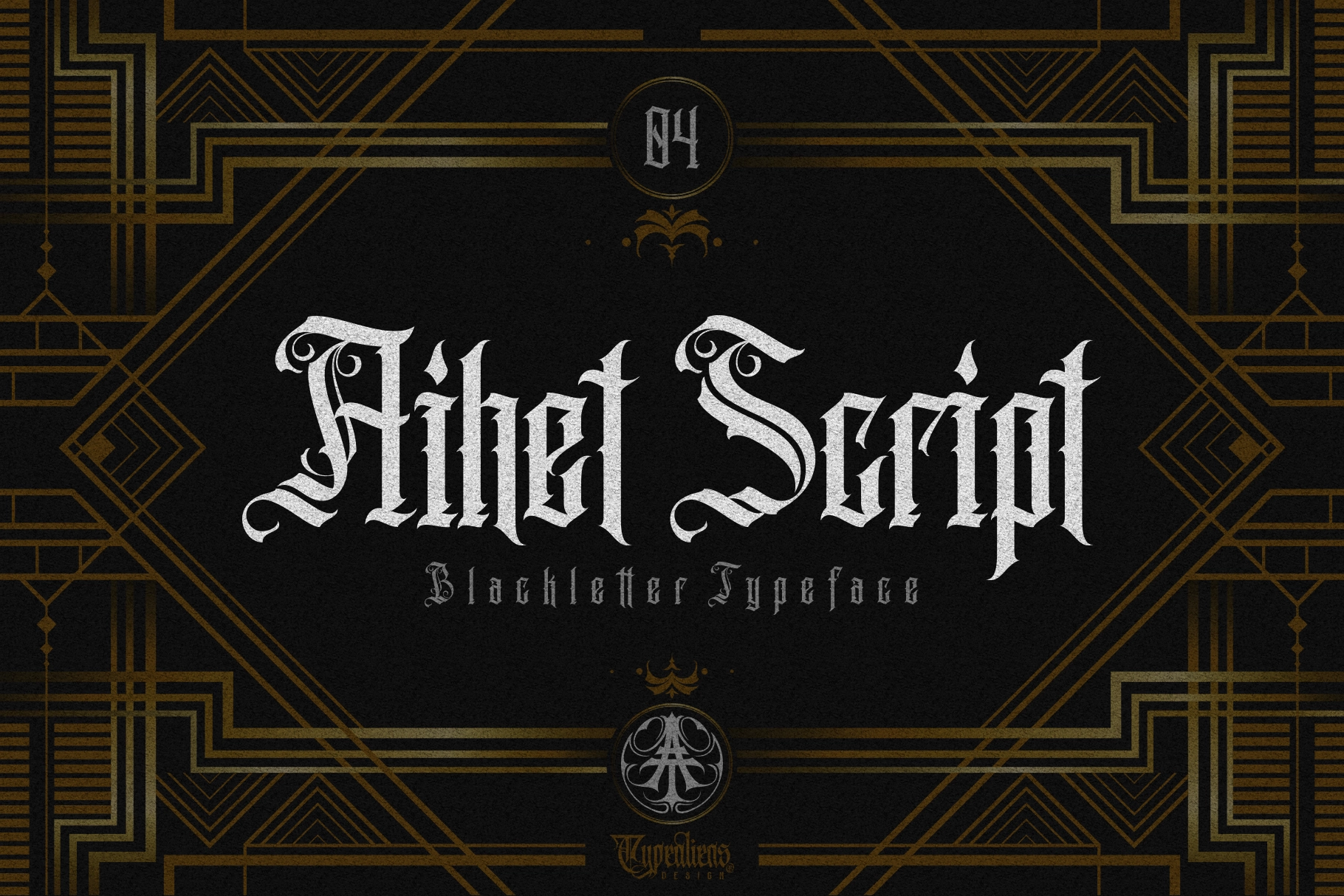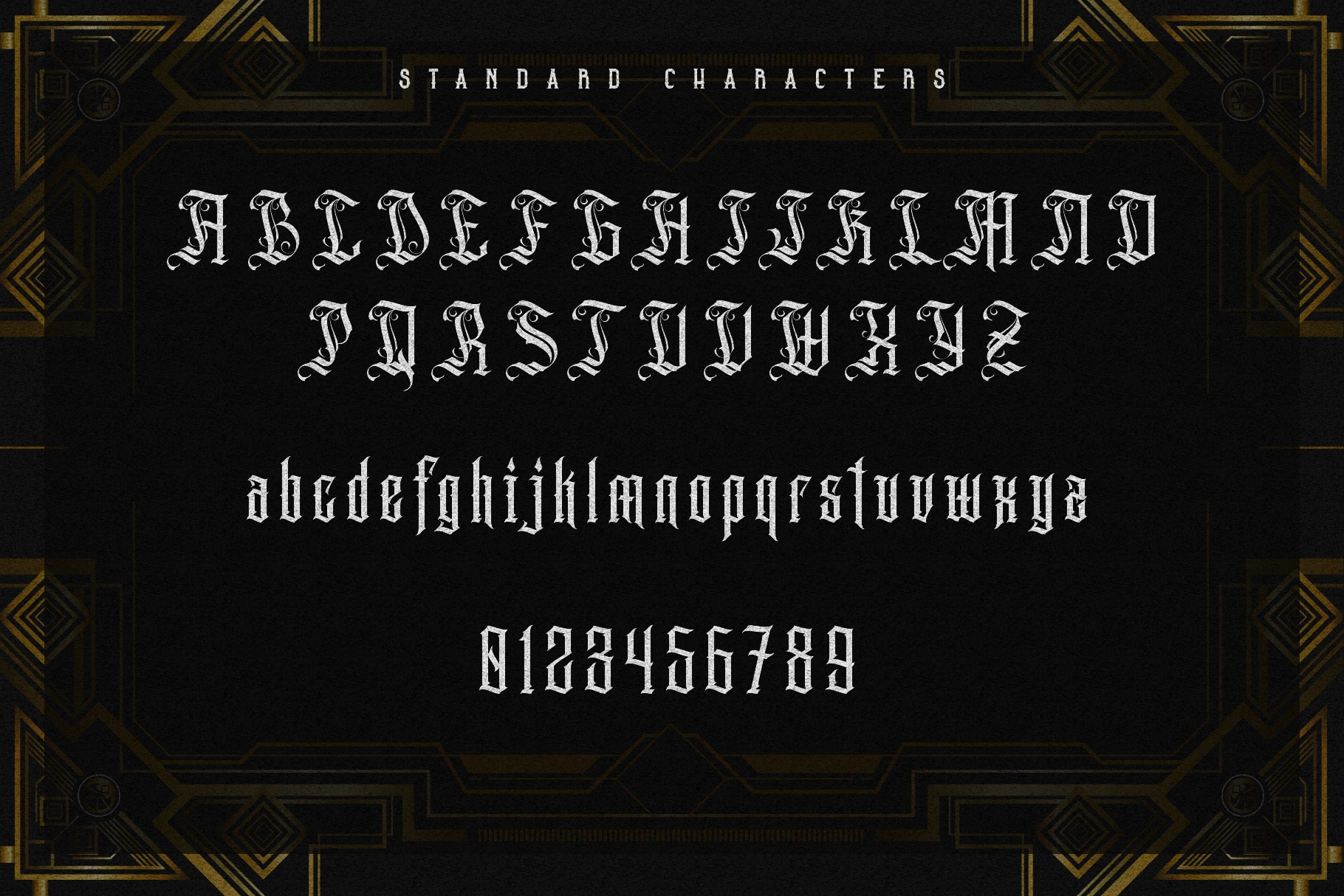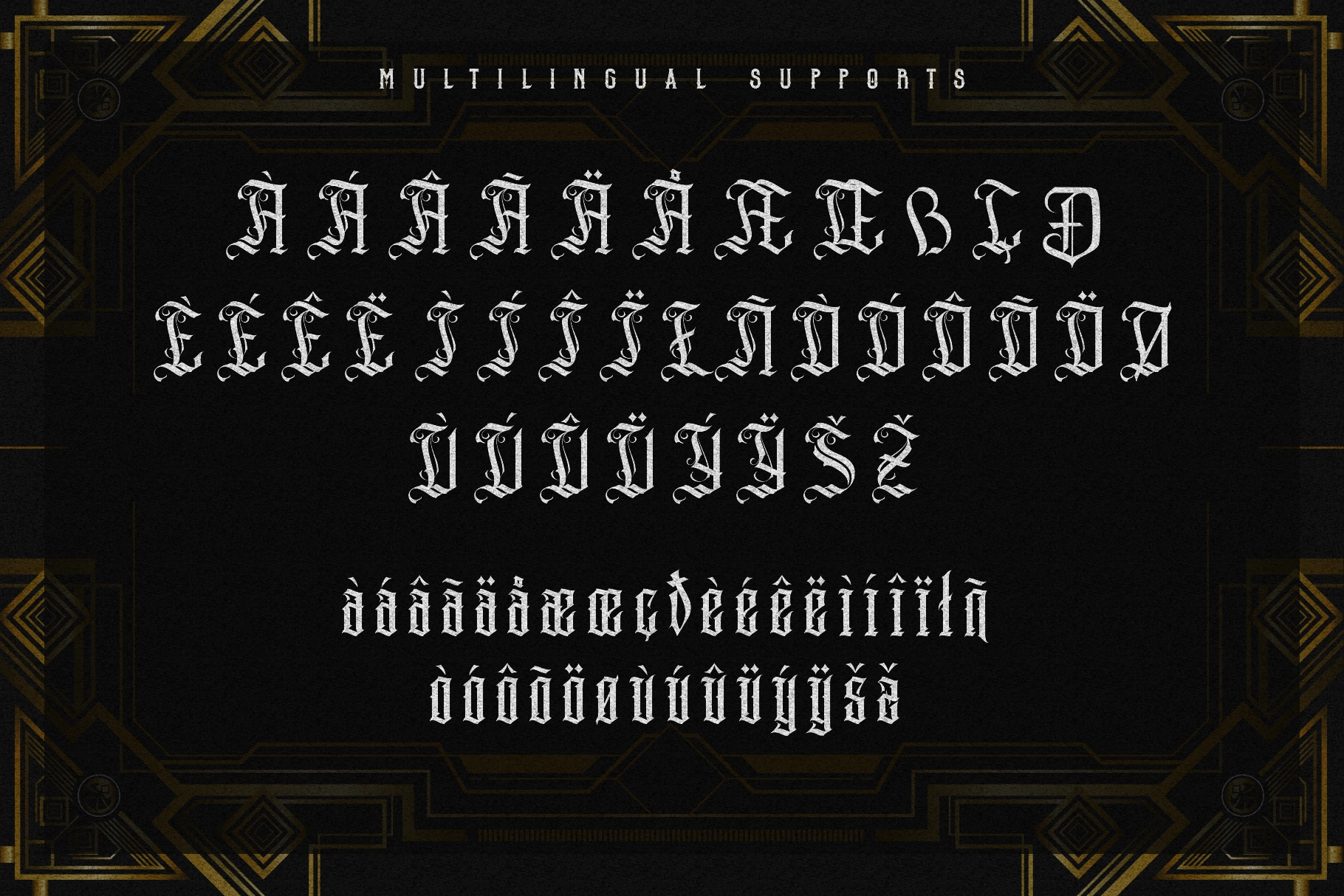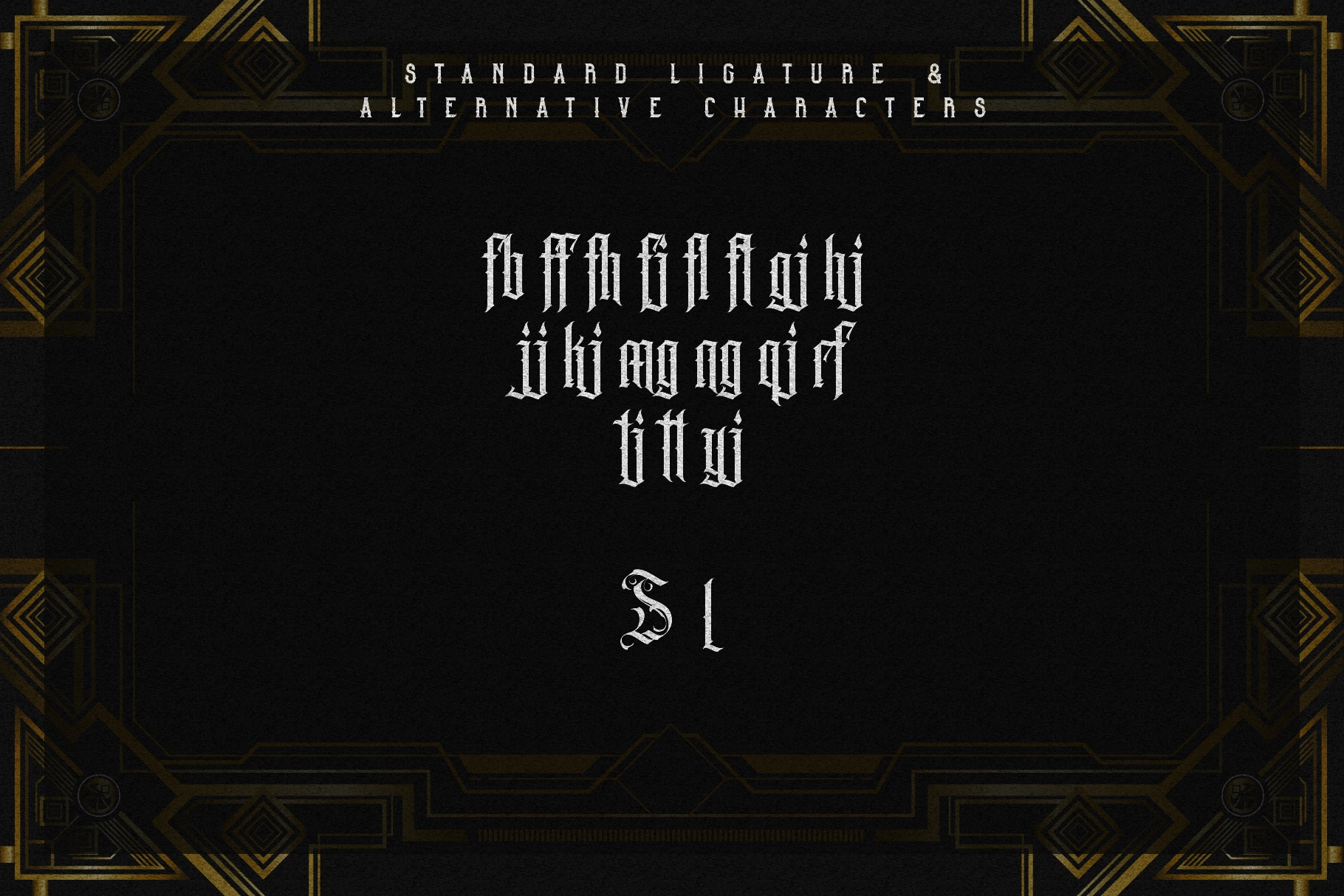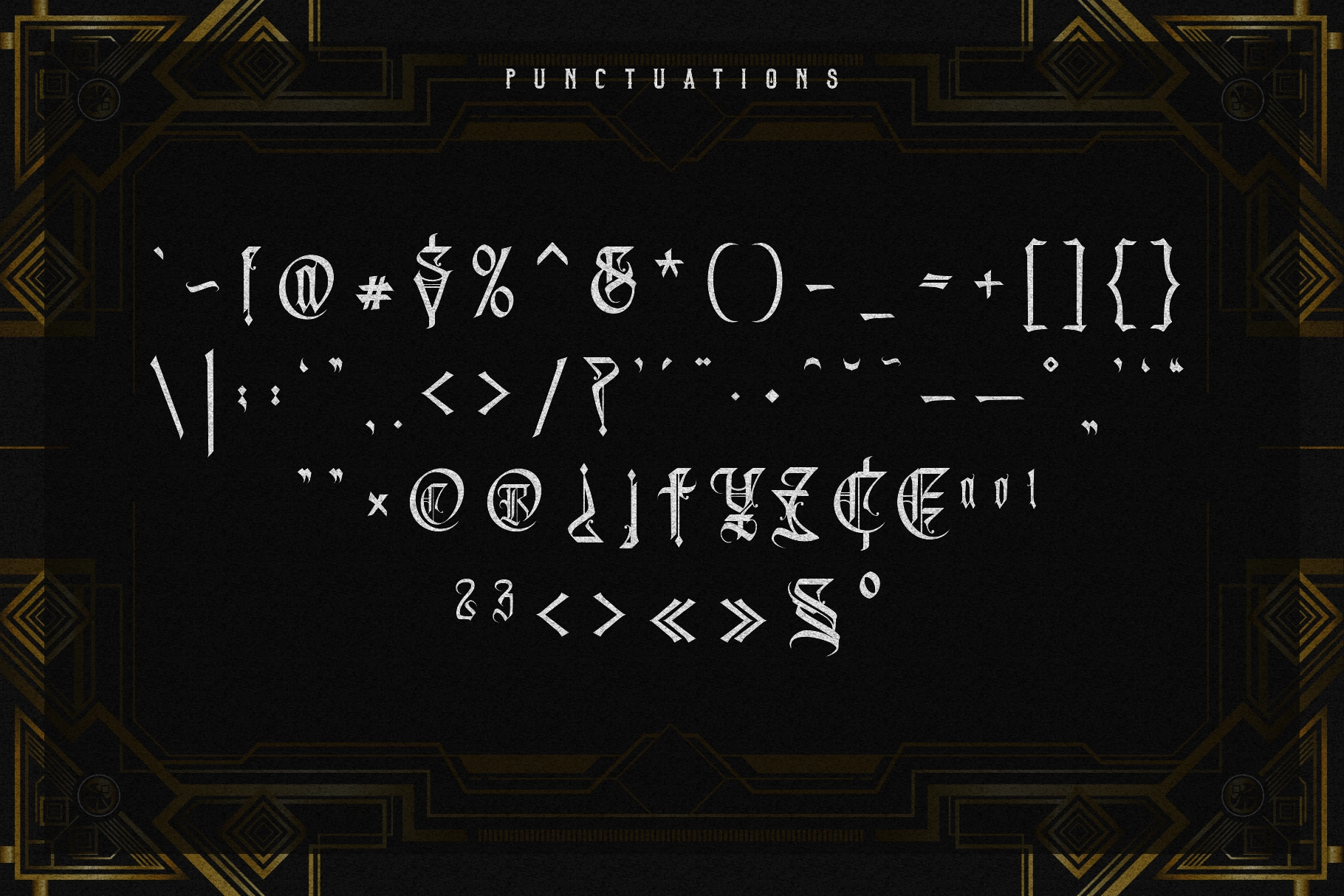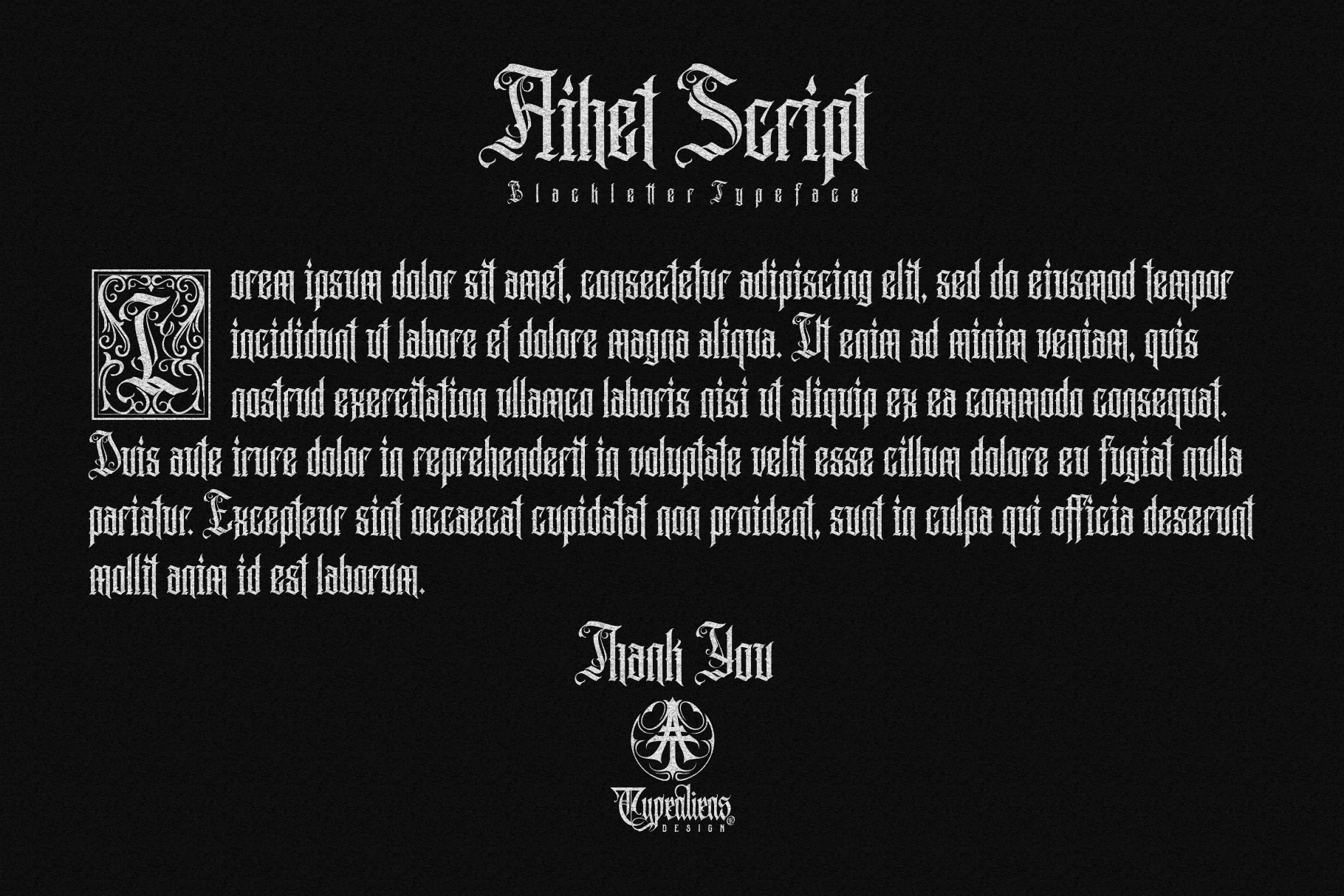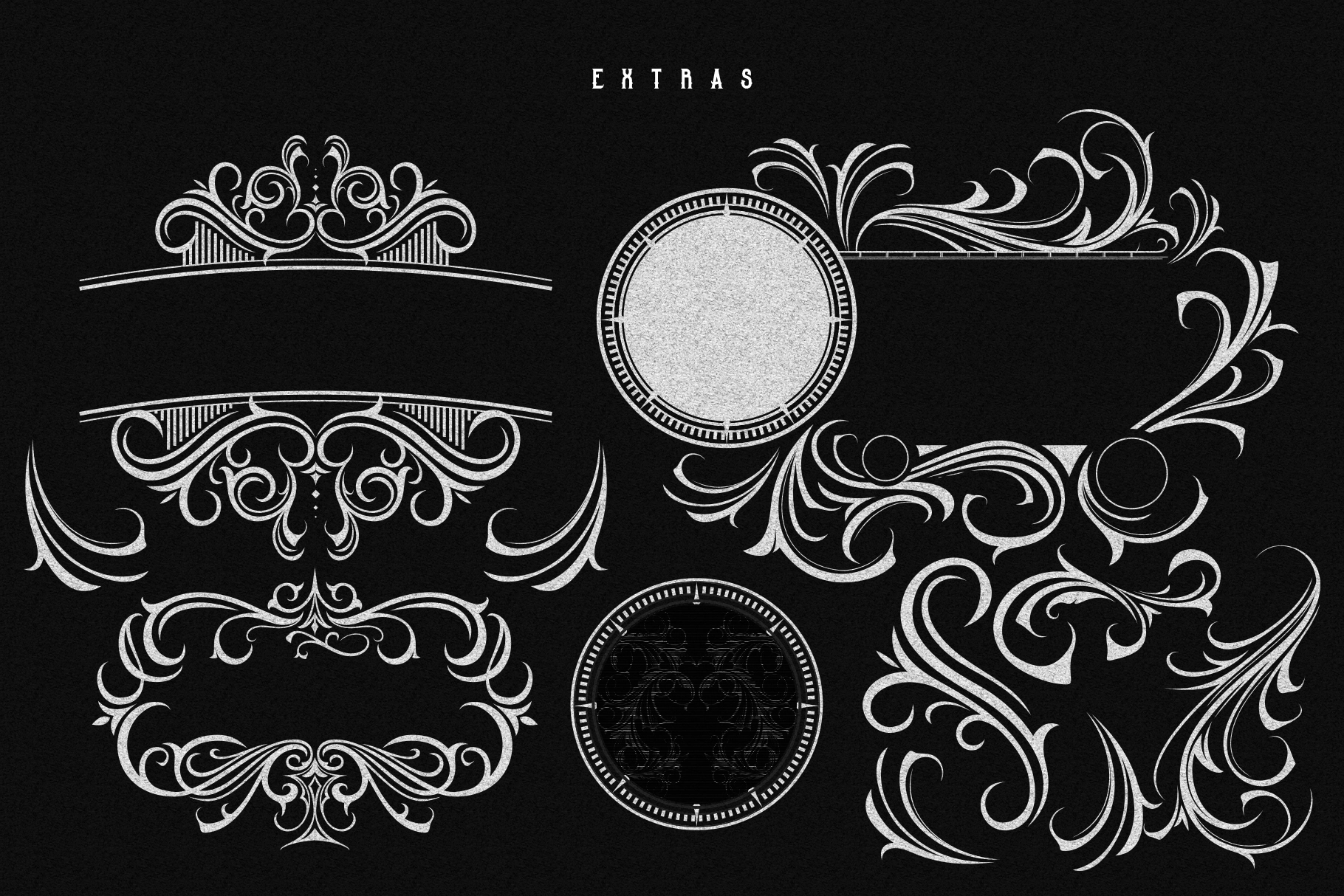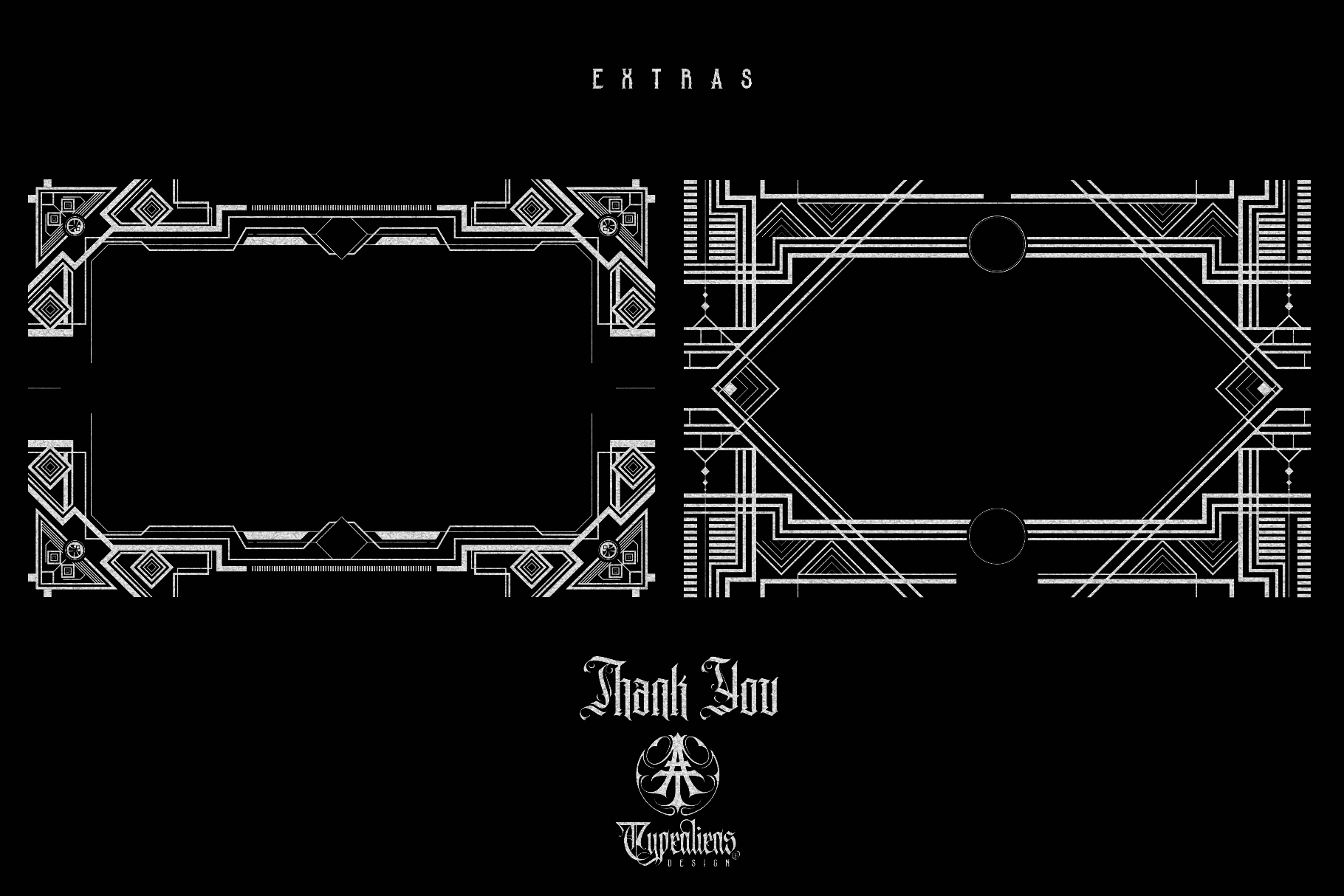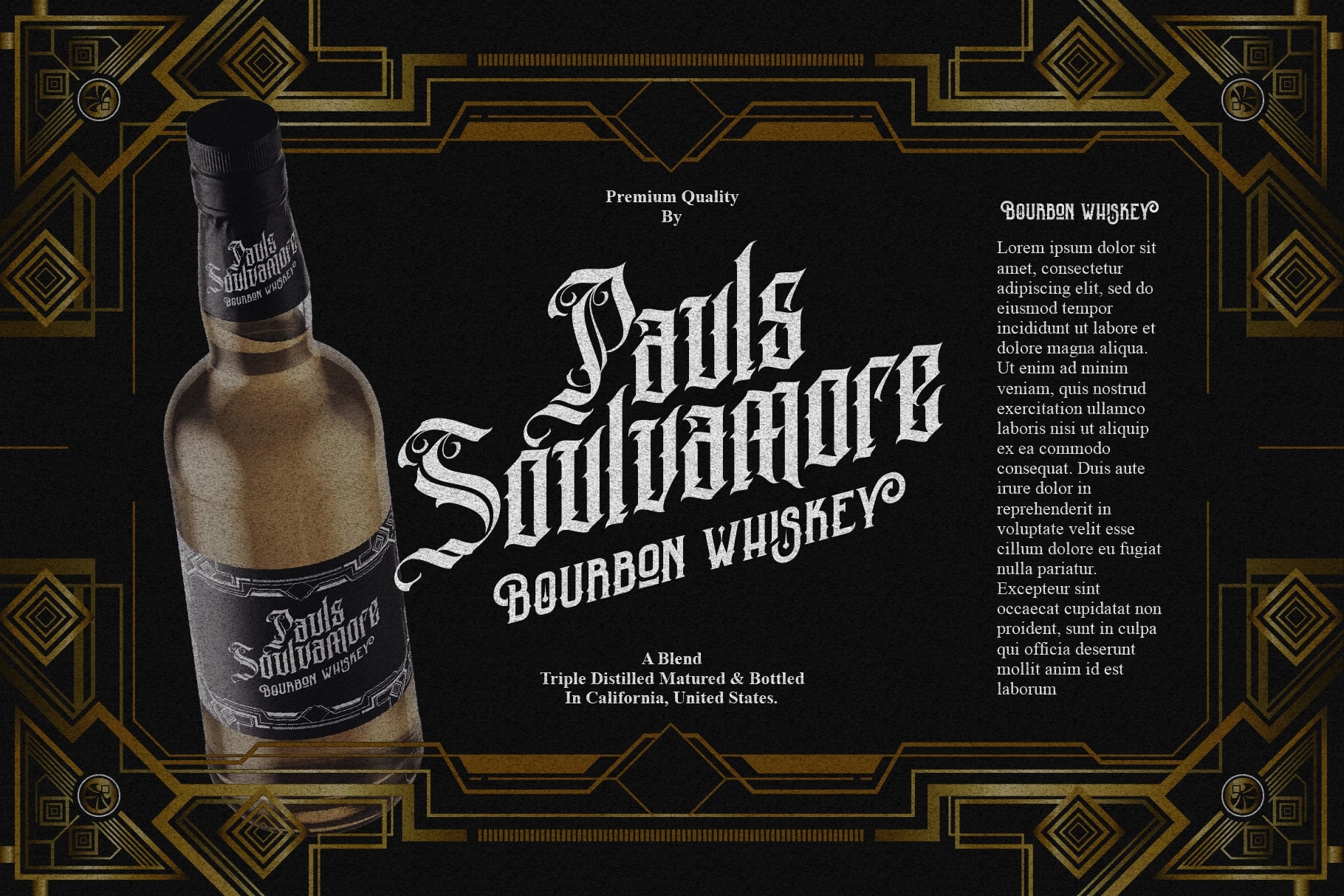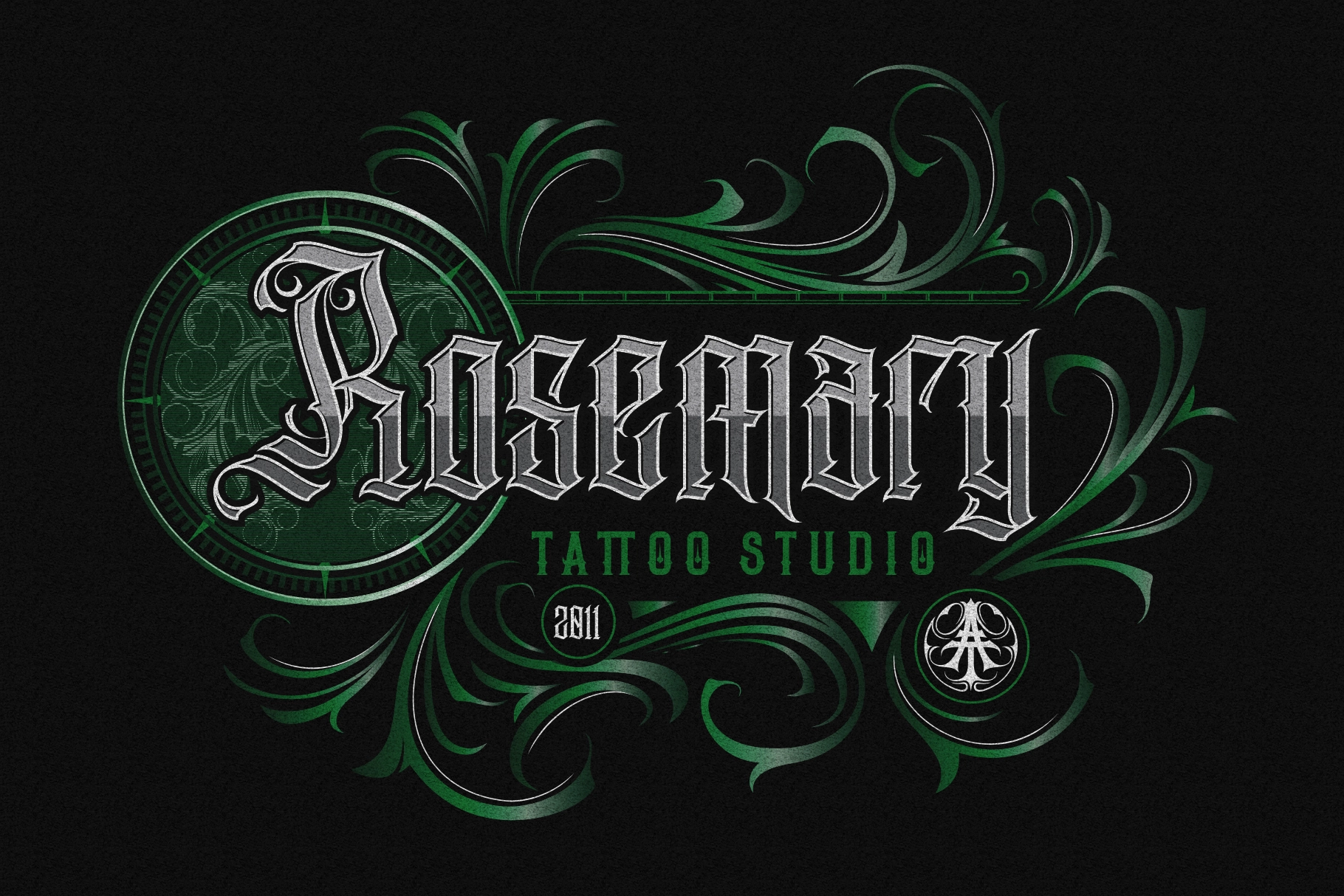
Aihet Script - Vintage Blackletter Font
Aihet Script
A blackletter typeface with sharp vertical rhythm, ornate curls, and a worn ink texture that gives each letter an old-world bite. Its vintage character is dramatic and ceremonial, with enough grit to work beyond purely formal layouts.
Aihet fits tattoo logos, beverage labels, barbershop marks, music event posters, metal band artwork, badge designs, clothing graphics, whiskey packaging, motorcycle club emblems, book covers, gothic invitations, editorial titles, and ornamental branding systems.
- Ligatures
- Alternative characters
- Extra vector ornaments